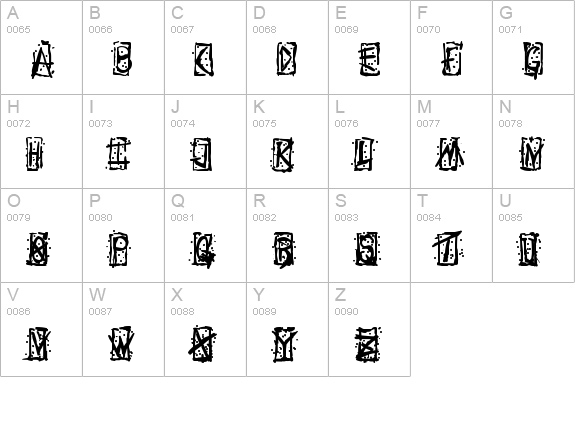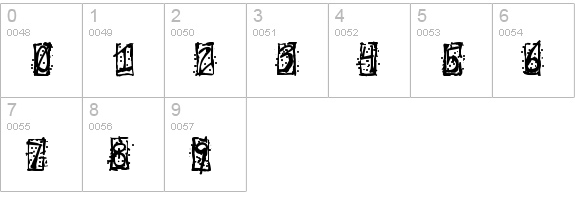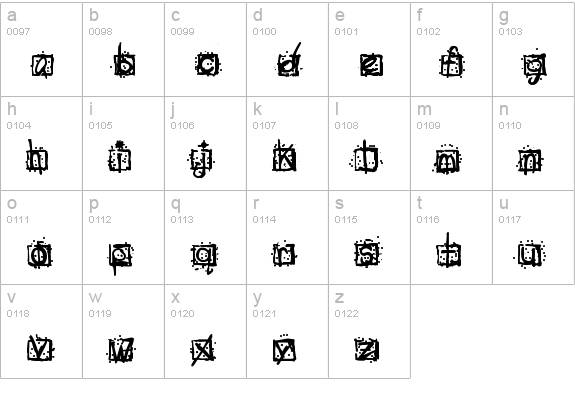
Evils Signature Font Details
Evils Signature font exudes a sense of mystery and elegance, making it perfect for adding a touch of sophistication to any design project. With its unique and bold letterforms, this font is sure to make a statement and leave a lasting impression. Whether you're working on a branding project, a poster design, or a social media graphic, Evils Signature font will elevate your work to the next level. The best part? Evils Signature font is completely free to download at FontsMarket.com. Take advantage of this amazing opportunity to enhance your designs with a font that is both striking and versatile. Don't miss out on the chance to add a touch of intrigue to your projects with Evils Signature font. Download it now and start creating stunning visuals that stand out from the crowd.